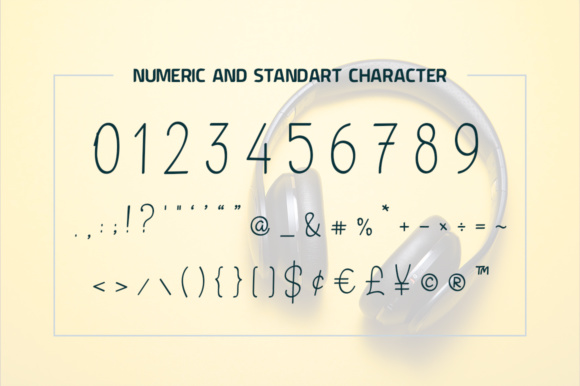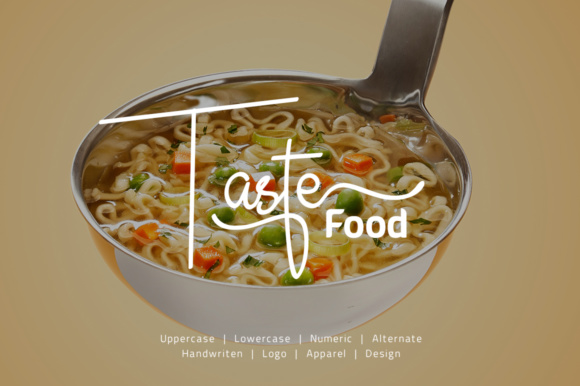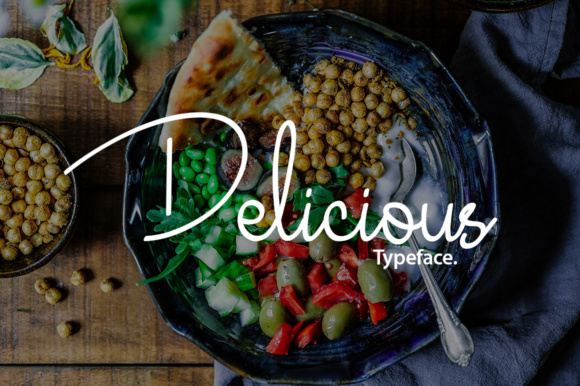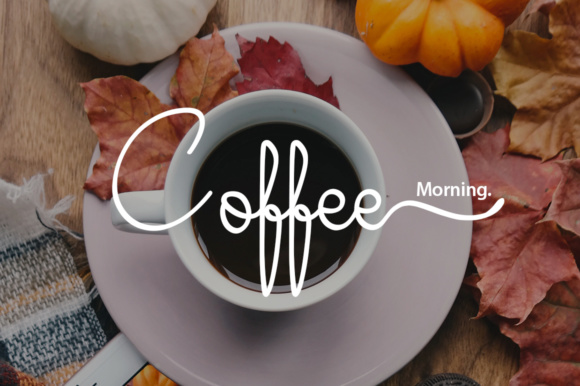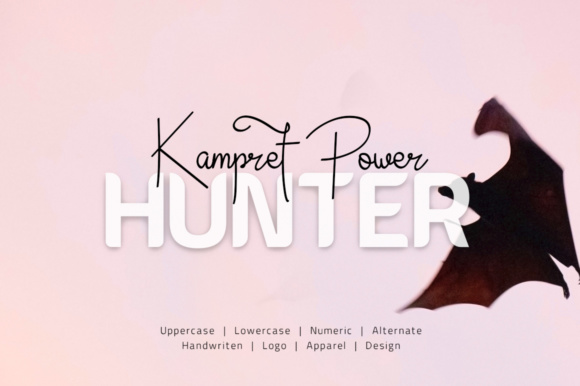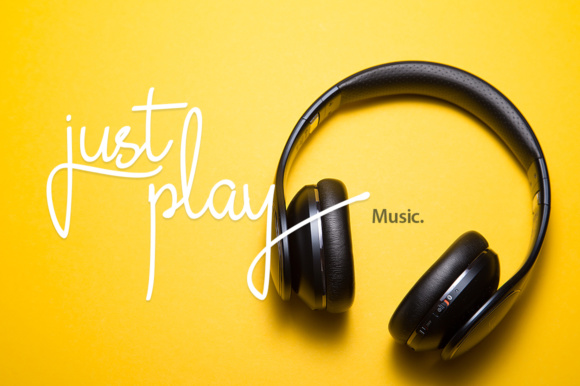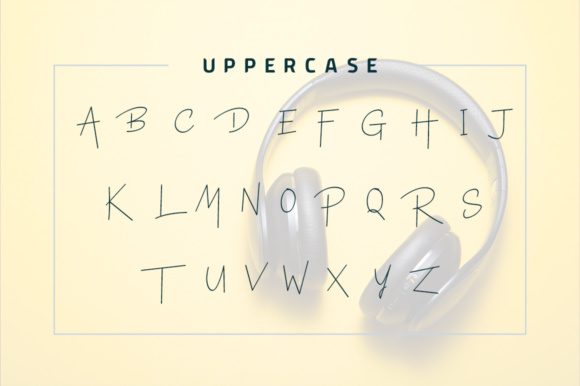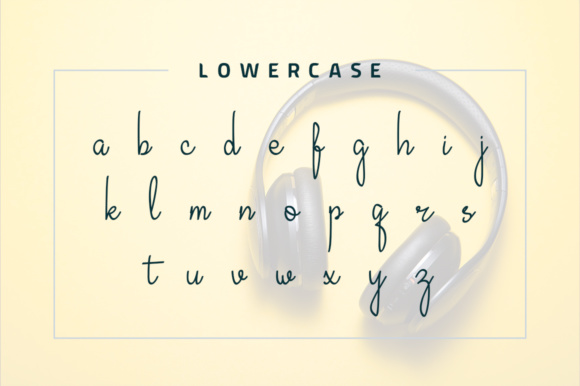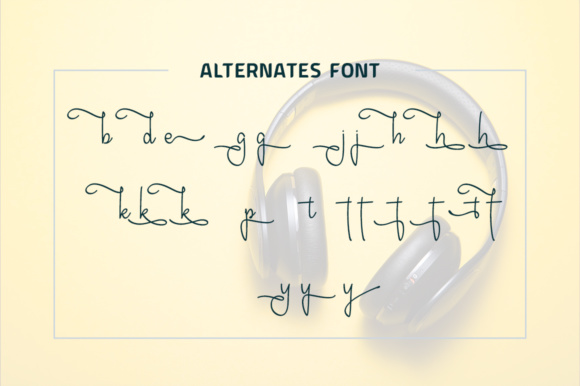
Badriyatun Script Font
About Badriyatun Script Font
The Badriyatun Script is a stylish font that features a varying baseline.
This calligraphy-style font has smooth classical lines, giving it a interesting unique touch.